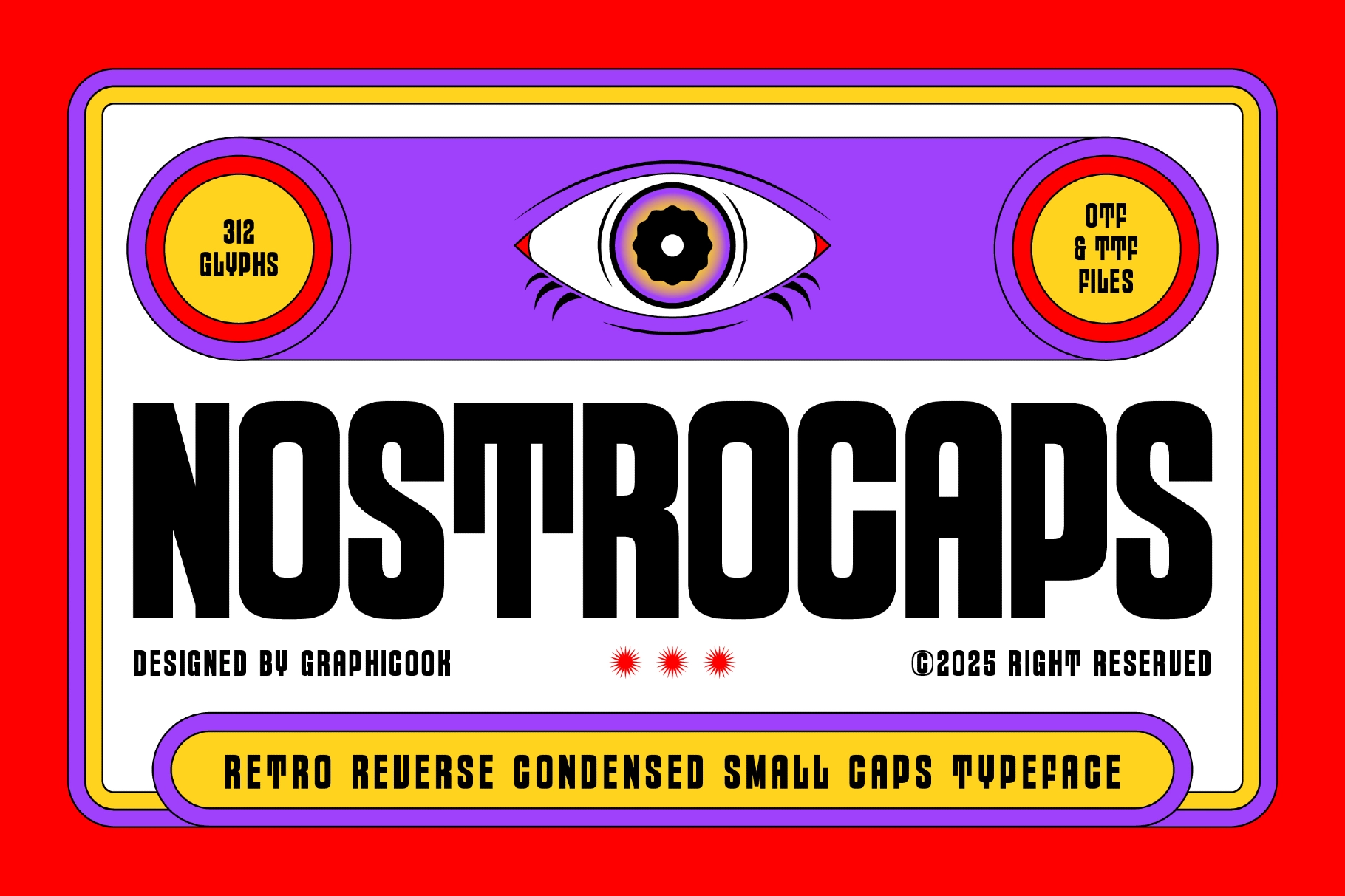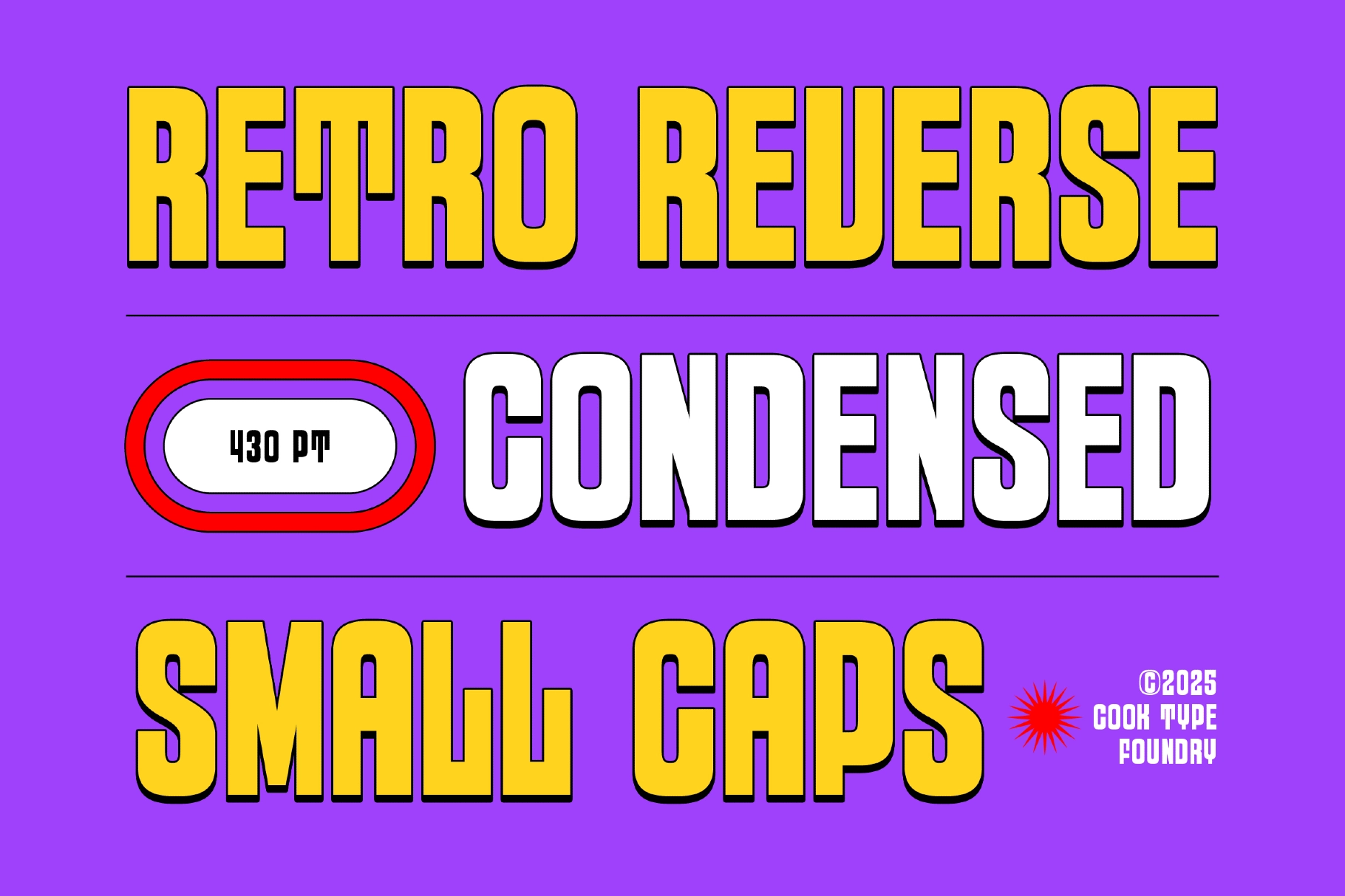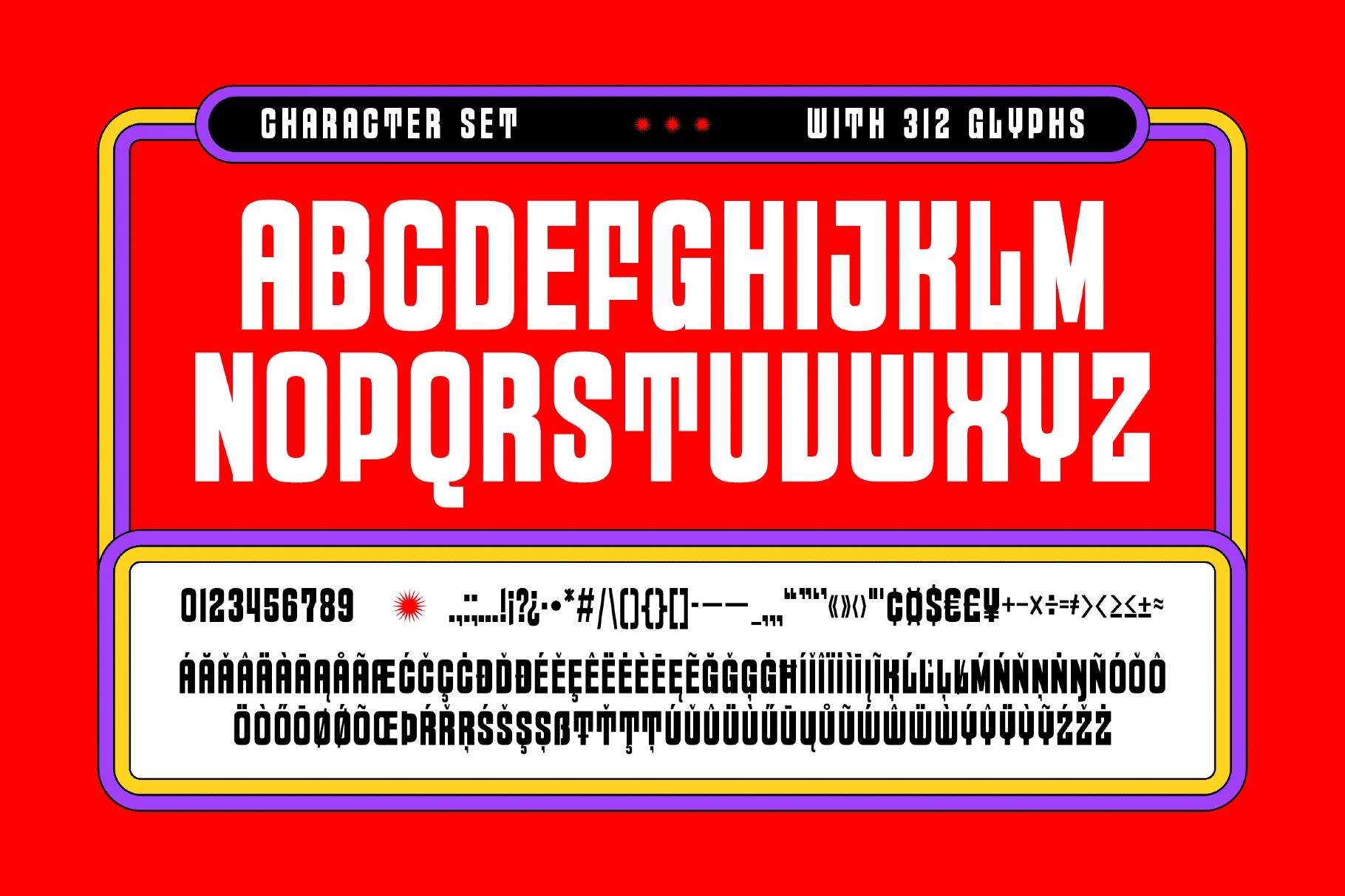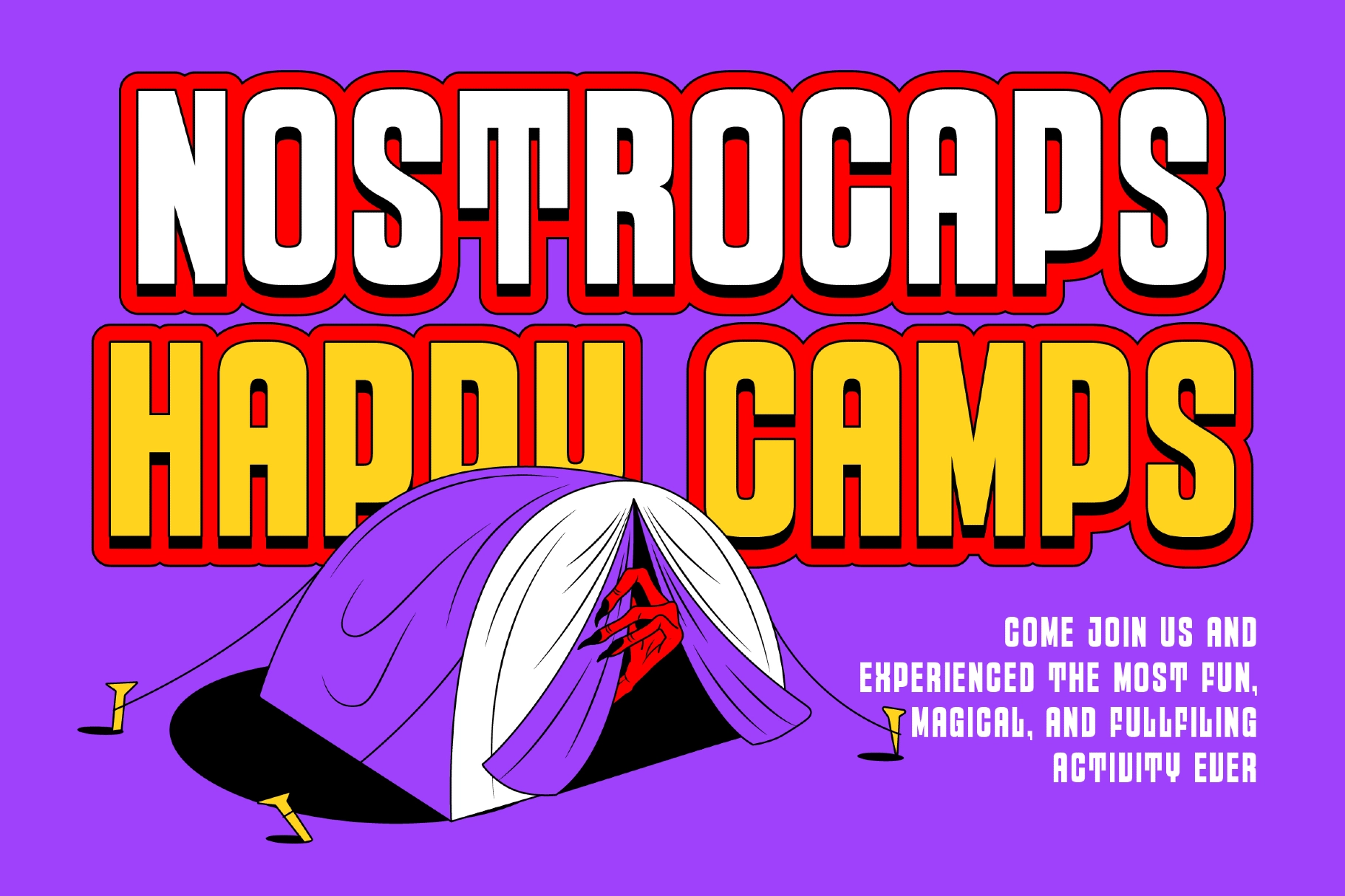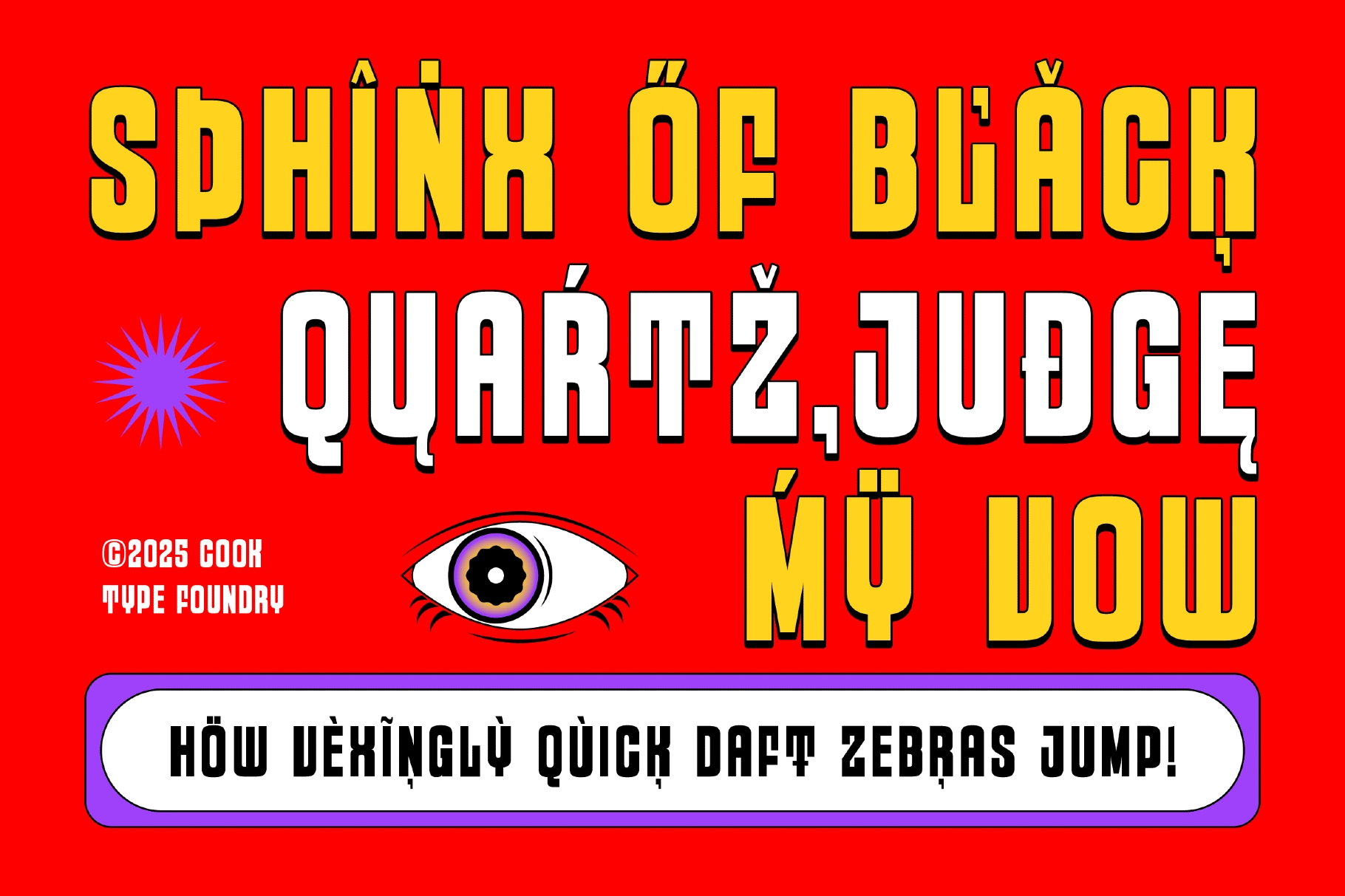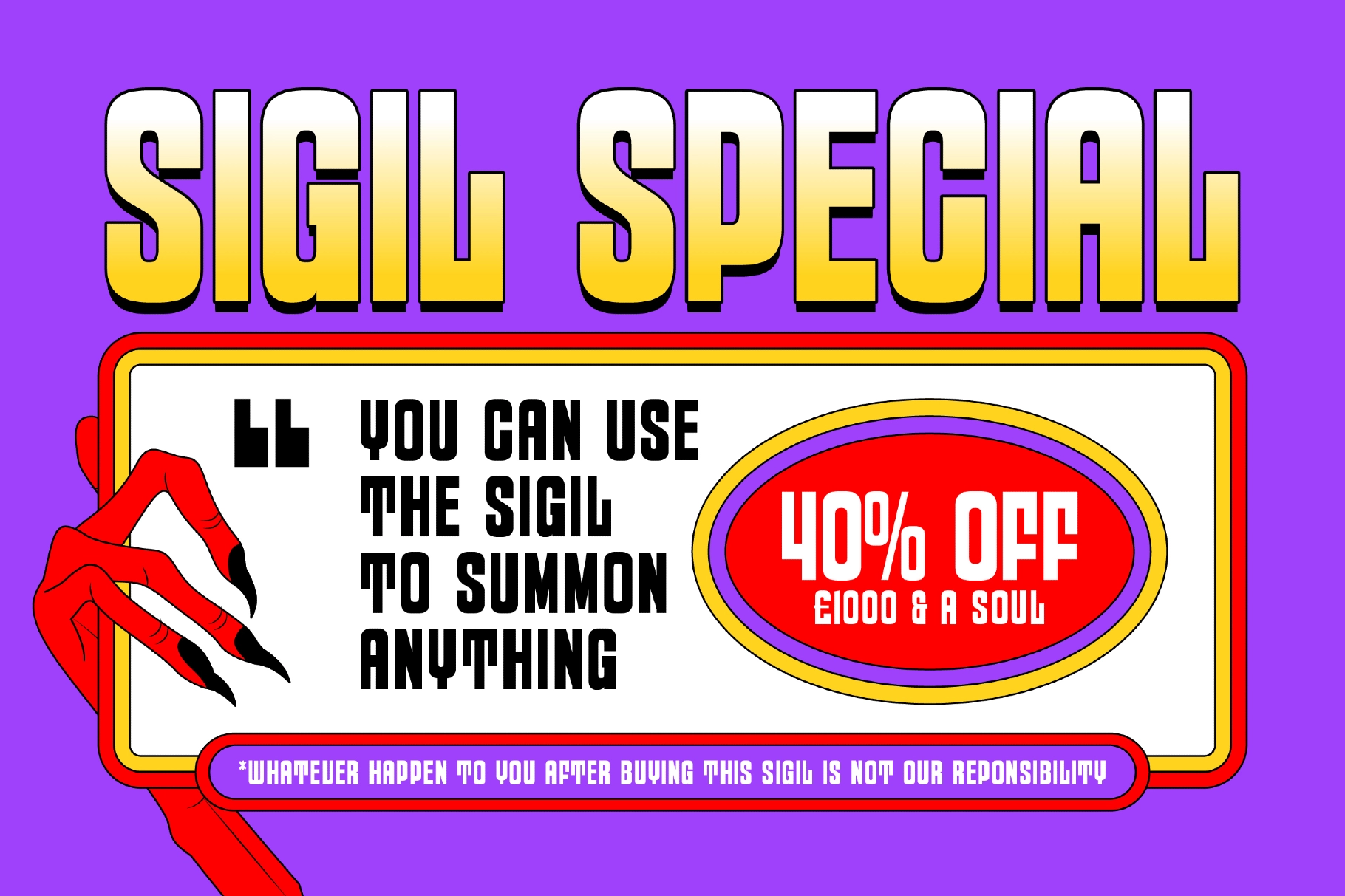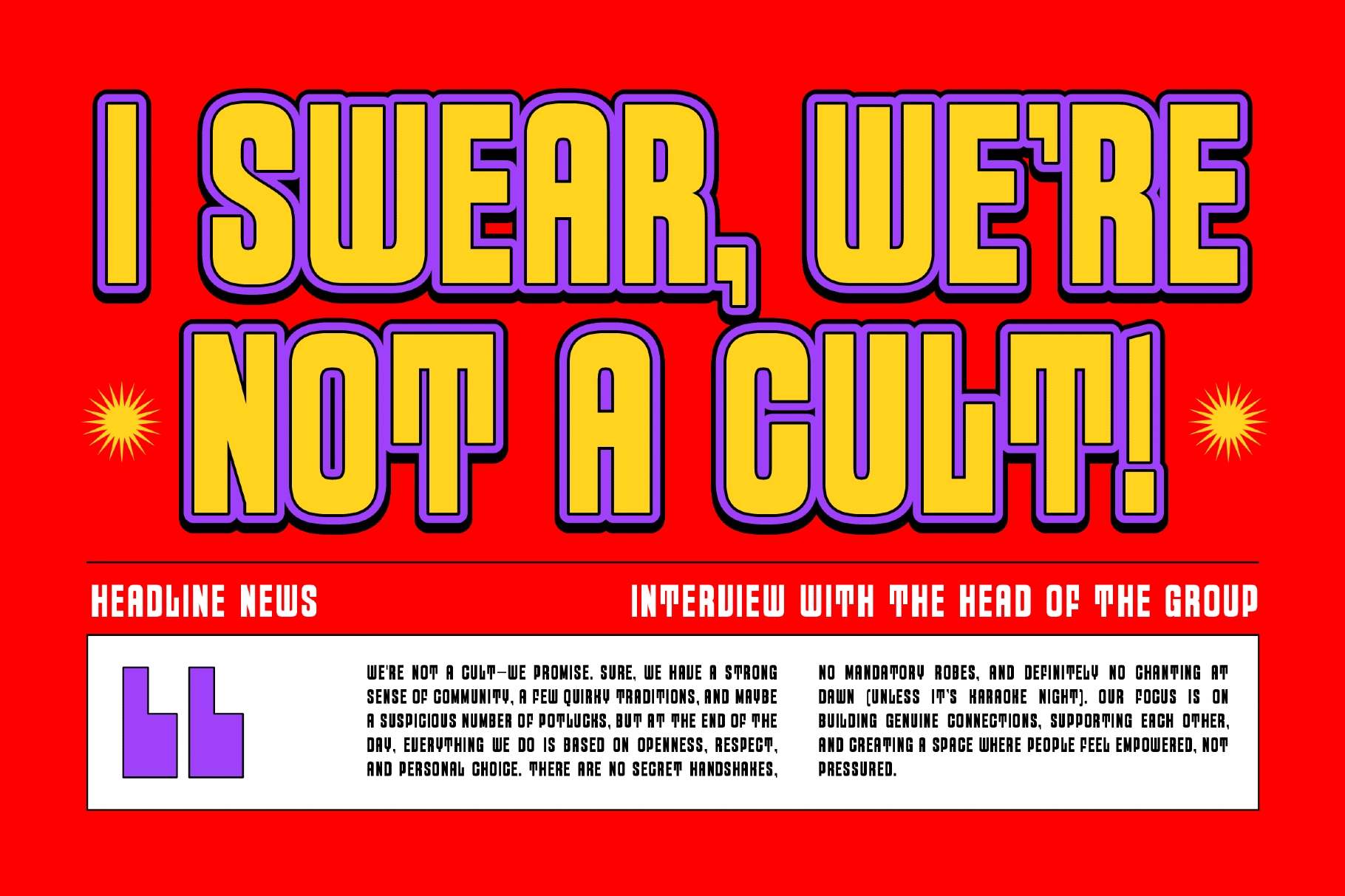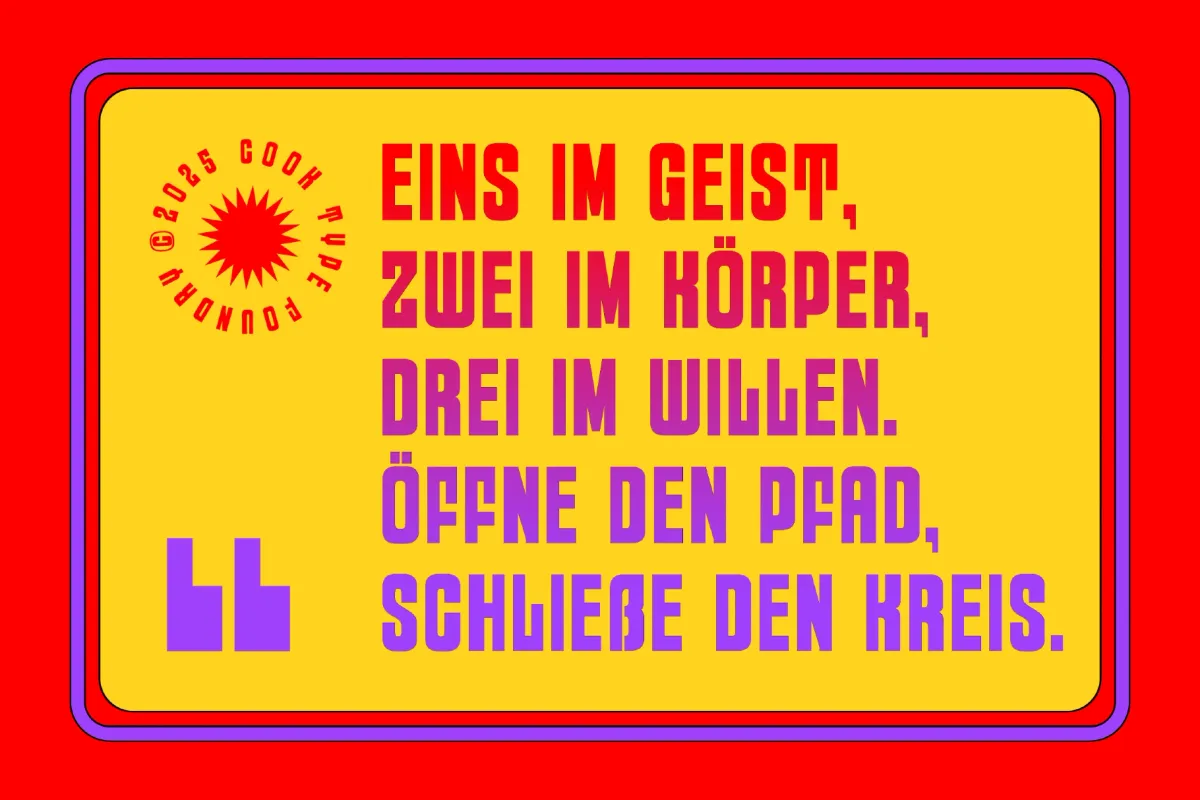
Nostrocaps Font
Nostrocaps
Nostrocaps is an experimental condensed font that delivers a clean, modern, and powerful appearance. Ideal for headlines, music posters, and logos.